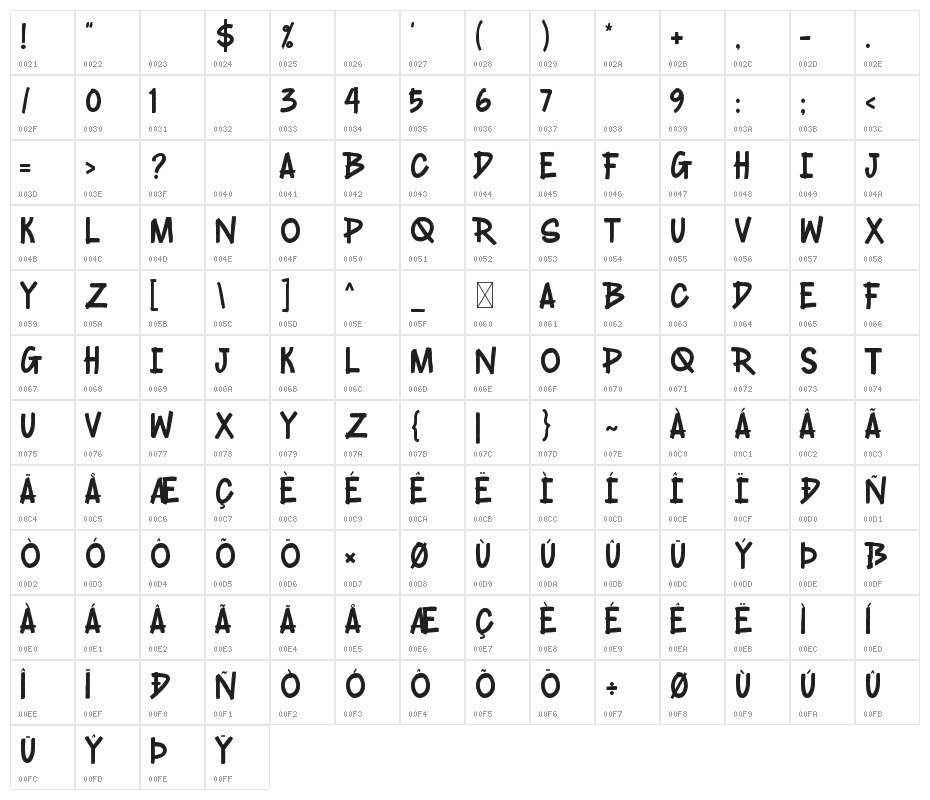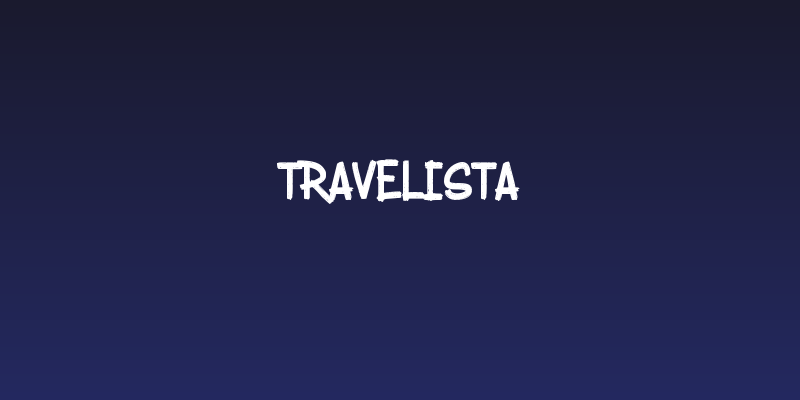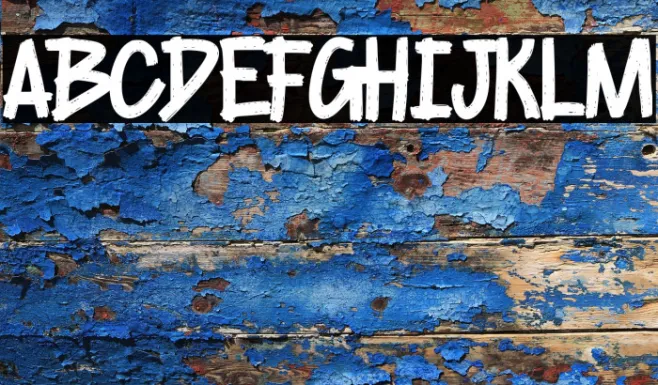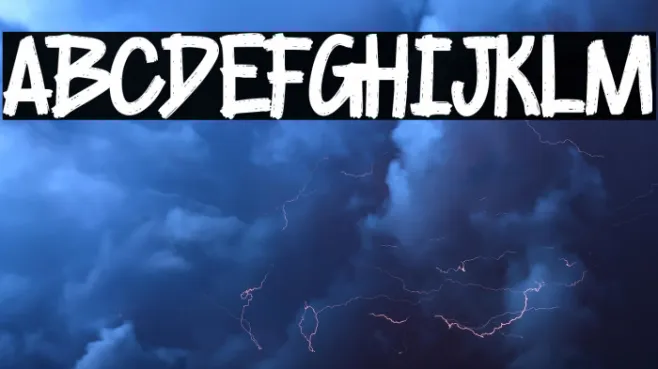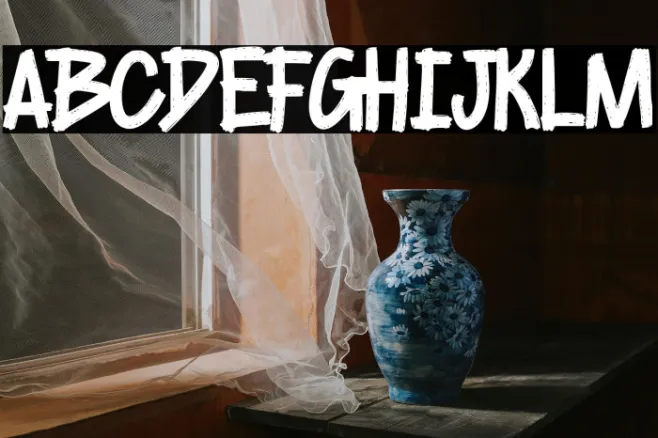
Travelista Font
Travelista Description
This font features a bold, hand-drawn style with a playful and energetic appearance. The characters are slightly irregular, giving it a casual and informal feel. The strokes are thick and consistent, with a rough texture that adds to its dynamic and expressive nature. The uppercase and lowercase letters maintain a consistent style, while the numerals and special characters complement the overall design. This font is ideal for projects that require a personal touch or a creative flair.
| Proposed Projects | Ideal for posters, branding, social media graphics, and creative projects that require a personal touch. |